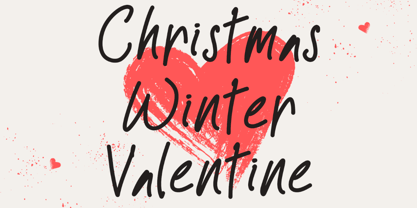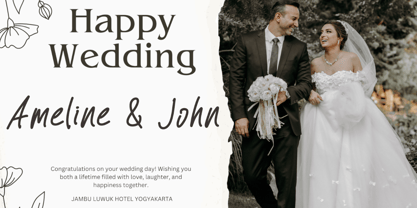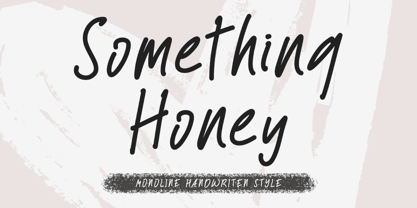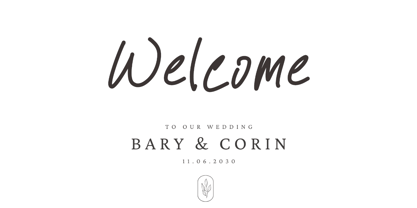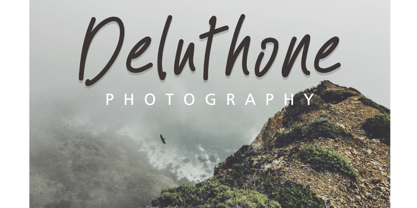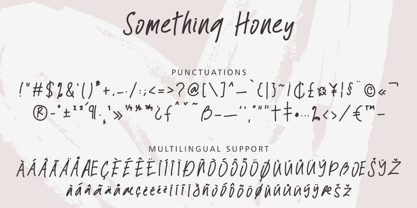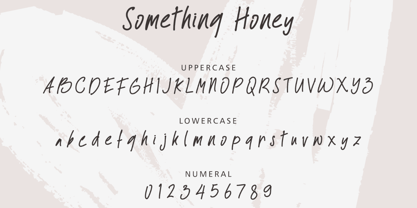
Something Honey
by Yoga Letter
The Something Honey Font Family was designed by Isroni Yoga Prasetya and published by Yoga Letter. Something Honey contains 1 styles. More about this family
"Something Honey" is a beautiful monoline font. It comes with uppercase, lowercase, numbers, punctuation, and multilingual support. Perfect for weddings, photography, invitations, Christmas, Valentine's, stickers, branding, banners, posters, and more.
Designers: Isroni Yoga Prasetya
Foundry: Yoga Letter
Yoga Letter is independent Type Foundry based in Indonesia, Magelang. I'm a graphic designer who love lettering and creates some fonts with all of my depth love. I'm making creative & fresh fonts, high quality, highly recommended, and suitable for your business. I hope can be a contributor as a fonts author at MyFonts, and I will do the best to create amazing fonts.